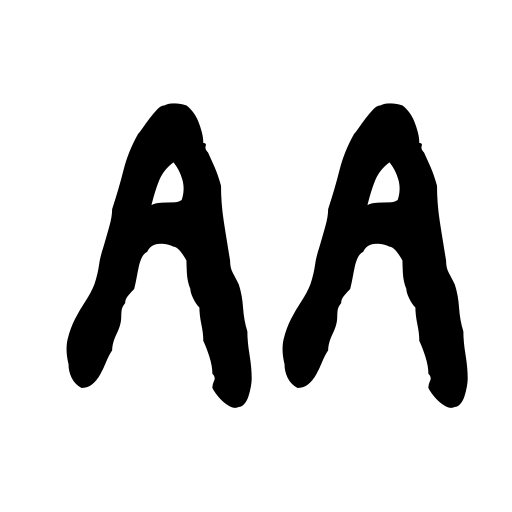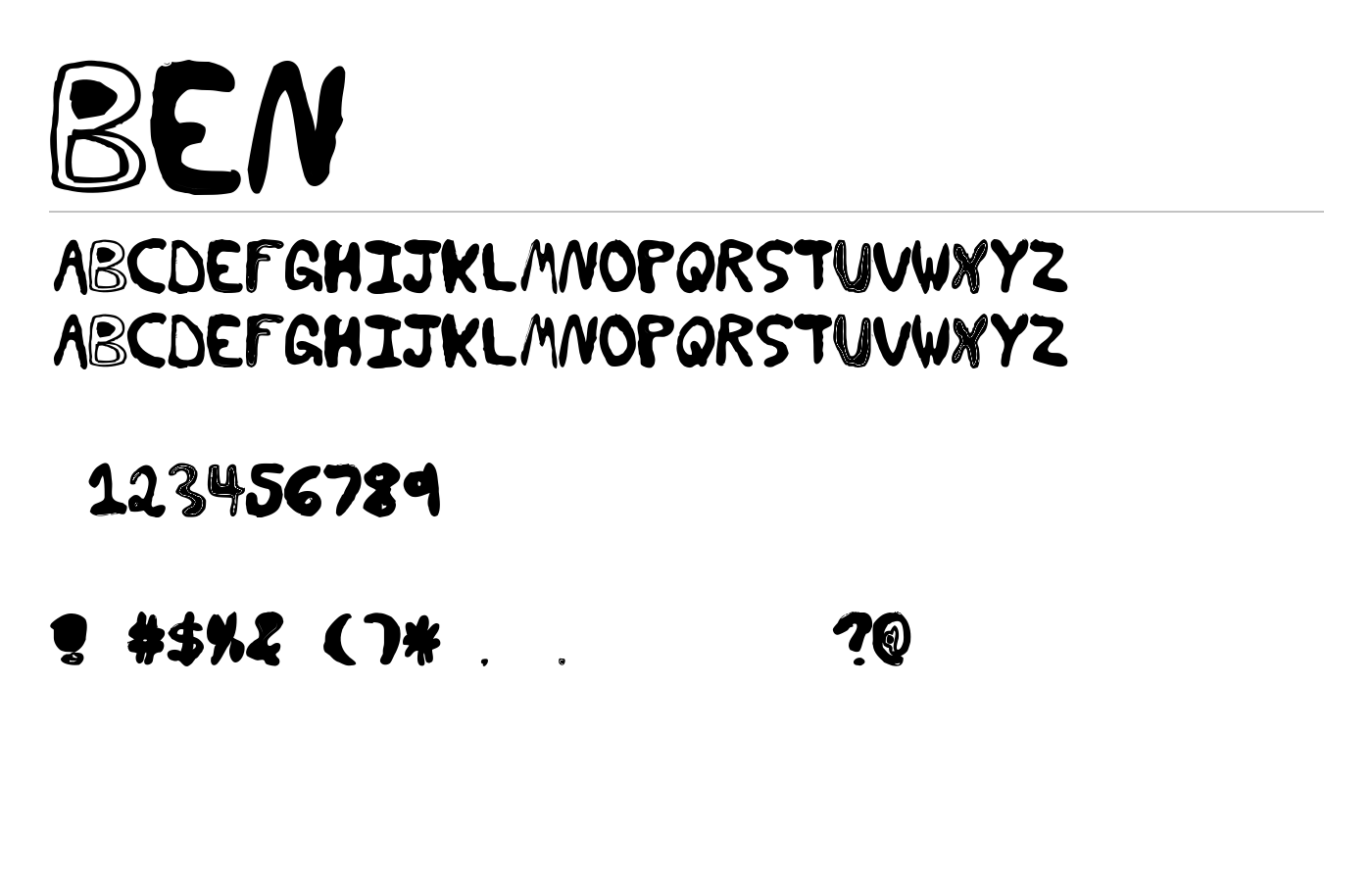
Ben Font is a playful and informal handwritten typeface with a casual, slightly quirky character. Its uneven strokes and bold weight give it a lively, artistic feel perfect for creative projects, children’s materials, or branding that aims to be approachable and fun. This font works well in headlines, logos, and posters where a unique, friendly touch is desired.